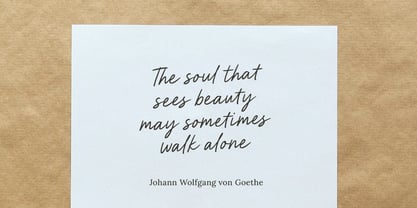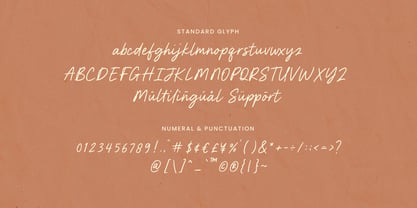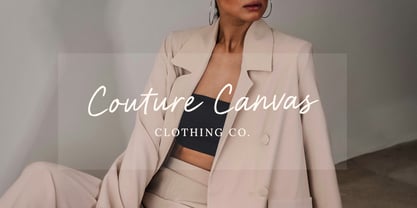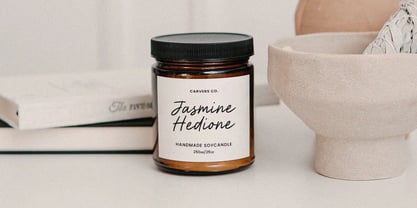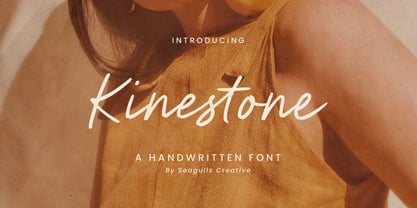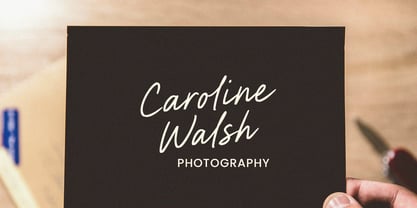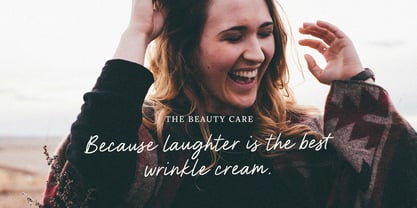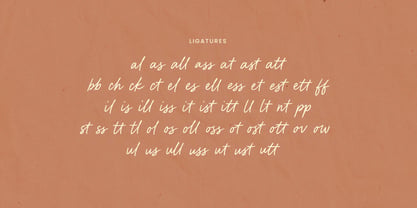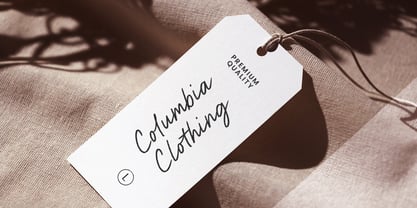
Kinestone
by Seagulls Creative
The Kinestone Font Family was designed by Septyan Abdan and published by Seagulls Creative. Kinestone contains 1 styles. More about this family
Hello everyone, I would like to introduce Kinestone a modern and stylish handwritten font. Kinestone can be used for a variety of projects such as branding, labels, photography, invitations, stationery, wedding designs, social media posts, advertising, product packaging, product design, and more. What you get: Kinestone Font Letters, numbers, symbols, punctuation and ligatures Works on PC & Mac Simple installations Accessible. Fonts include multilingual support Hope you enjoy our font, thank you!
Designers: Septyan Abdan
Foundry: Seagulls Creative
Seagulls Creative is an independent type foundry dedicated to crafting thoughtfully designed typefaces that balance clarity, personality, and timeless appeal. Rooted in a deep appreciation for typography as both a functional tool and a form of visual expression, Seagulls Creative approaches type design with careful attention to detail, proportion, and rhythm. Our work is driven by the belief that type should communicate with elegance and purpose. Each typeface is developed through a refined design process that emphasizes readability, versatility, and character, making our fonts suitable for a wide range of creative applications—from branding and editorial design to digital and print projects. Inspired by modern aesthetics with subtle classic influences, Seagulls Creative aims to create typefaces that feel contemporary yet enduring. We focus on delivering well-crafted fonts that support designers in telling their stories clearly, beautifully, and confidently.